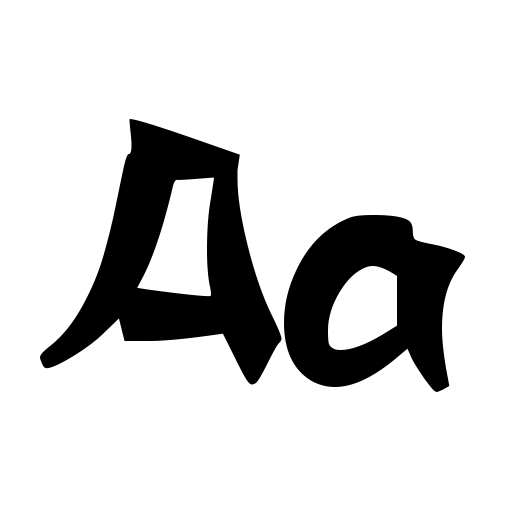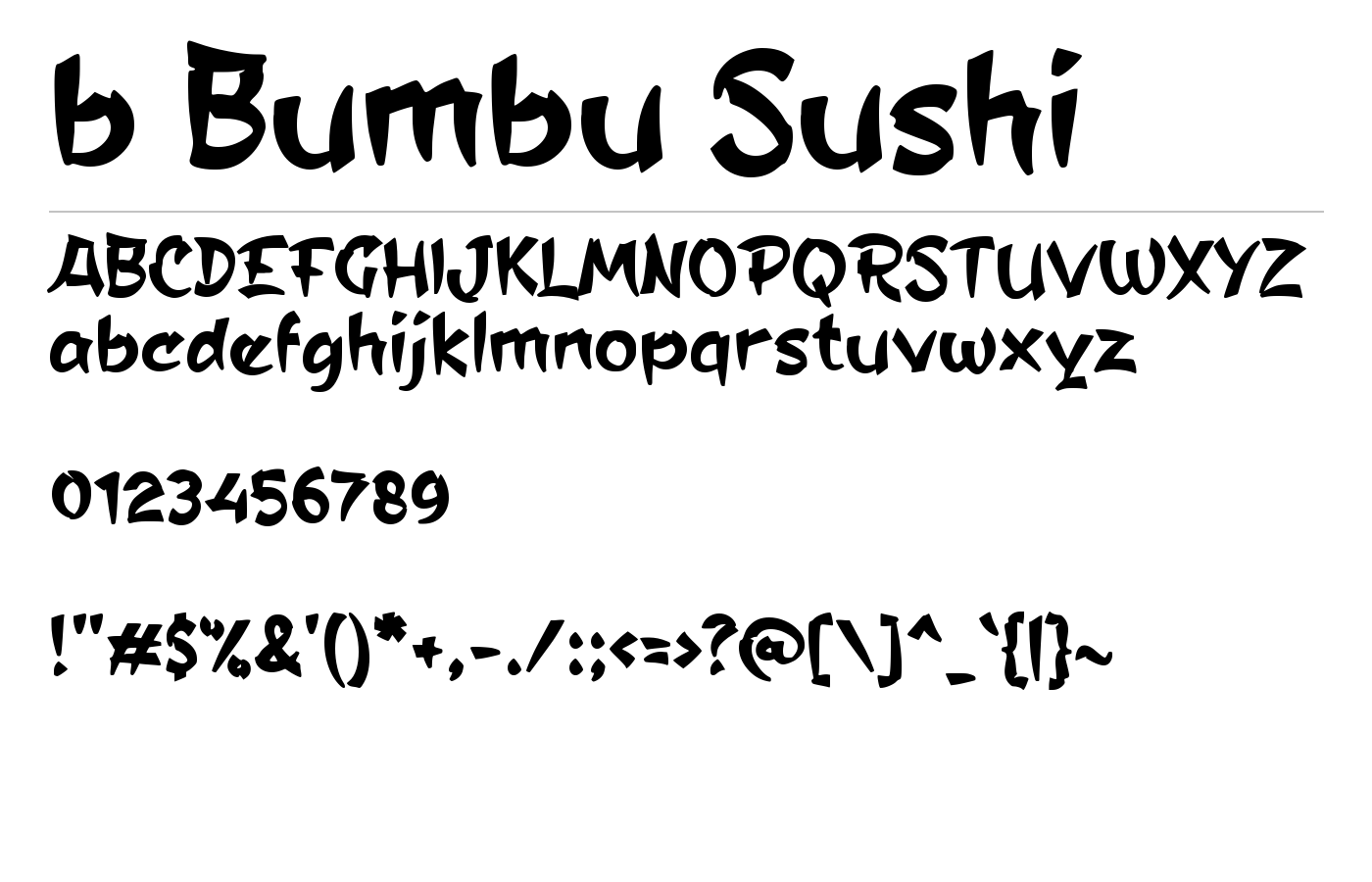
Bumbu Sushi is a playful, hand-drawn sans serif font with bold, irregular strokes and a lively, casual feel. Its unique, slightly rough letterforms, combined with varied stroke widths and quirky shapes, make it ideal for fun, informal designs like restaurant menus, packaging, or creative branding that seeks a friendly, approachable vibe. This font works best in display use where personality and charm are key, adding an artistic touch that grabs attention.
b Bumbu Sushi Font
About b Bumbu Sushi Font